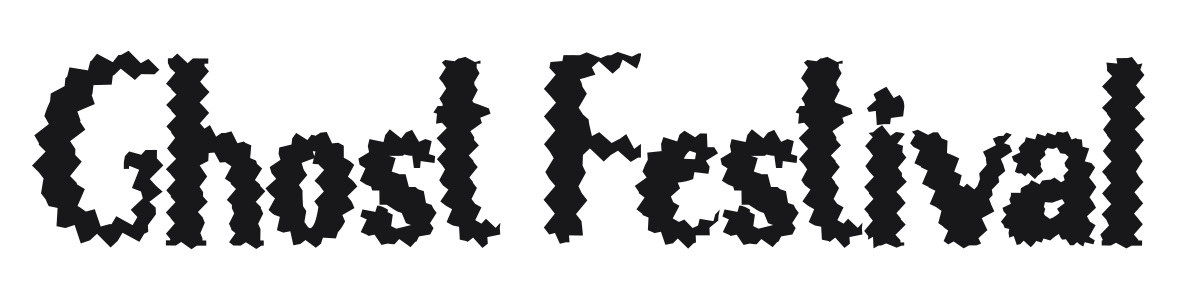
Ghost Festival
Ghost Festival is a bold eroded display face where every stroke is eaten away by jagged, irregular notches that suggest decay, rot, or supernatural corrosion. The underlying structure is a solid chunky sans, which keeps it readable even as the surface texture pushes into full horror-theme territory. It hits the sweet spot between playful and unsettling.